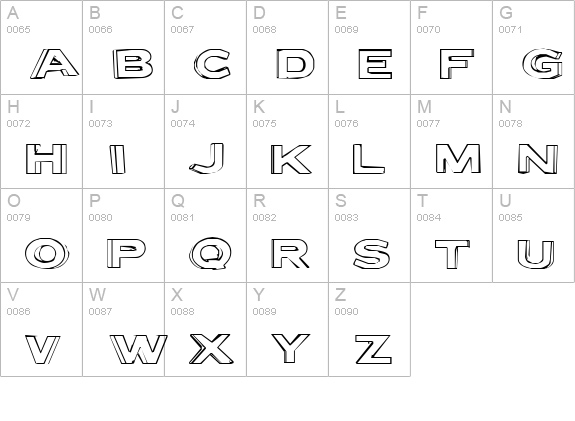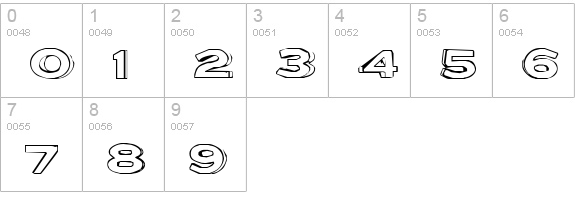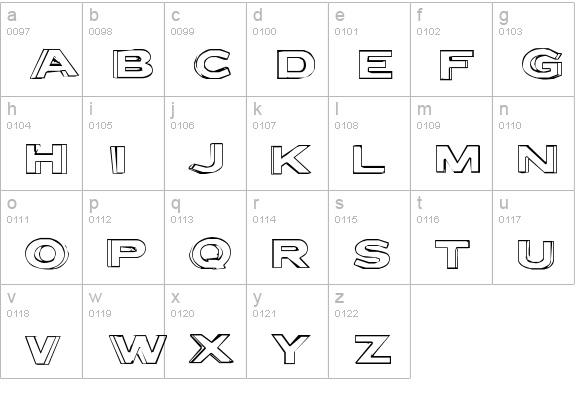
Letter Set B Font Details
Introducing Letter Set B, a stunning font that perfectly combines elegance and modernity. This versatile typeface is sure to elevate your designs to new heights, whether you're creating a logo, branding materials, or a captivating website. With its clean lines and distinctive letterforms, Letter Set B exudes sophistication and professionalism. What sets Letter Set B apart is its incredible attention to detail. Each character is meticulously crafted to ensure a seamless and harmonious flow throughout your text. The sharp edges and balanced proportions give this font a contemporary edge, making it ideal for both print and digital applications. But that's not all – Letter Set B is not only visually striking, but it's also free! Yes, you read that right. This amazing font is freely available to download at FontsMarket.com. Now you can enhance your projects with a premium font without breaking the bank. Whether you're a professional designer or a creative enthusiast, Letter Set B is the perfect addition to your font collection. Its versatility allows it to be used in a wide range of projects, from elegant wedding invitations to eye-catching social media graphics. With Letter Set B, the possibilities are endless. So why wait? Head over to FontsMarket.com and download Letter Set B today. Elevate your designs with this stunning font and watch as it captivates your audience with its timeless beauty and modern appeal. Get ready to make a lasting impression with Letter Set B.